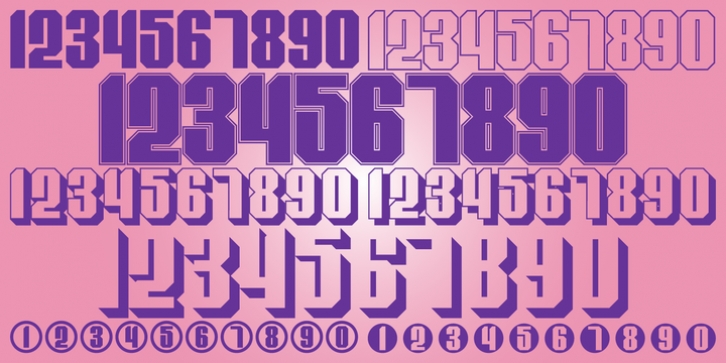
Display Digits Nine was designed by Gerald Gallo and published by Gerald Gallo. Display Digits Nine contains 1 style.
Display Digits Nine is a display number font with eight sets of variations of the same digits. The digits 0 through 9, with period and comma in appropriate variations, are prepared as (1) solid, (2) outline, (3) solid with contour outline, (4) outline with 3-D shadow, (5) 3-D shadow only, (6) outline with drop shadow, (7) positive in circle, (8) negative in circle.